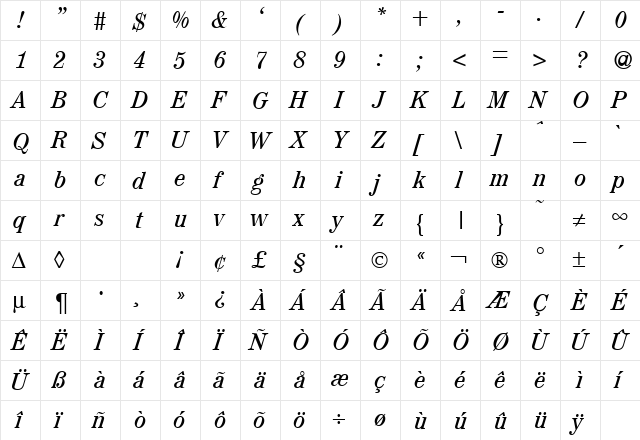
MapType RegularItalic
Design Context for MapType Typeface
MapType offers clean, dependable letterforms without strong stylistic allegiance, making it a practical choice for designers who need flexibility. Its italic angle brings a sense of urgency and motion to the letterforms.
Pro Tip: Use MapType for emphasis, pull quotes, and subheadings where its slanted energy can add rhythm to the layout.